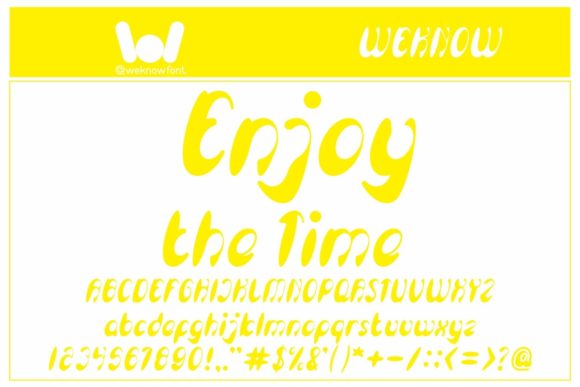
Adorn your designs with Enjoy the Time Font, a whimsical and chic display font that's bound to make a statement. Whether you're crafting cards, creating logos, designing labels, or embarking on any other creative endeavor, Enjoy the Time Font will elevate your work to new heights of elegance and charm.
With its playful yet sophisticated curves, this font exudes a sense of joy and lightheartedness that is sure to captivate your audience. Imagine the delight of your customers as they encounter your designs, adorned with this enchanting font that dances across the page, captivating their attention and leaving a lasting impression.
Enjoy the Time Font is incredibly versatile, effortlessly adapting to a wide range of design styles and themes. Its playful nature makes it perfect for children's books, invitations, and whimsical branding, while its sophisticated charm lends itself beautifully to wedding stationery, fashion magazines, and luxury packaging.
Let your creativity run wild as you explore the endless possibilities of Enjoy the Time Font. Discover the joy of creating designs that resonate with your audience, designs that spark conversations and leave a lasting impact. This font is more than just a collection of letters; it's a gateway to a world of boundless creativity, where your imagination can soar and your designs can truly shine.
Embrace the magic of Enjoy the Time Font today and embark on a creative journey that will leave you feeling inspired, fulfilled, and amazed by the beauty you can create.